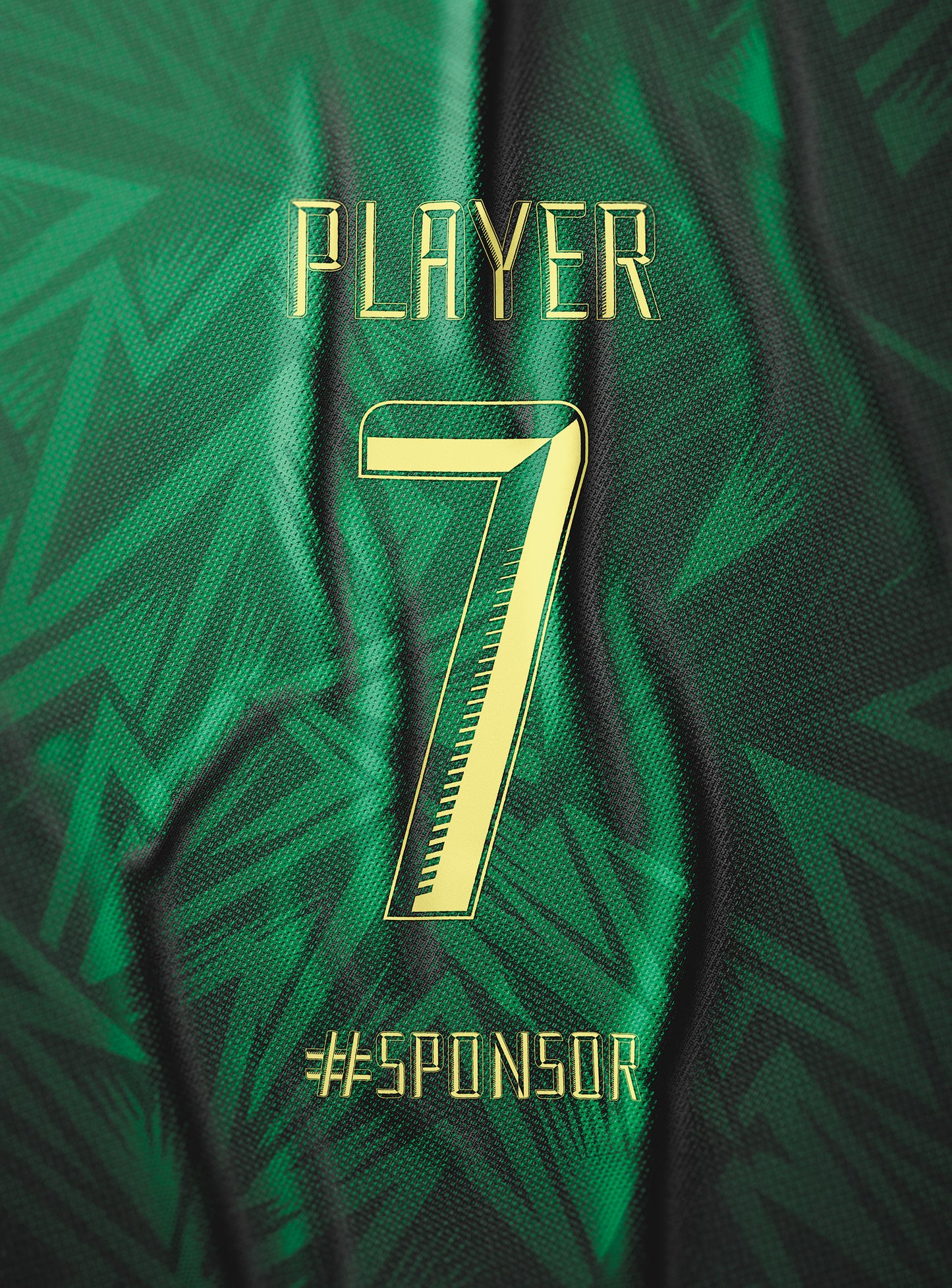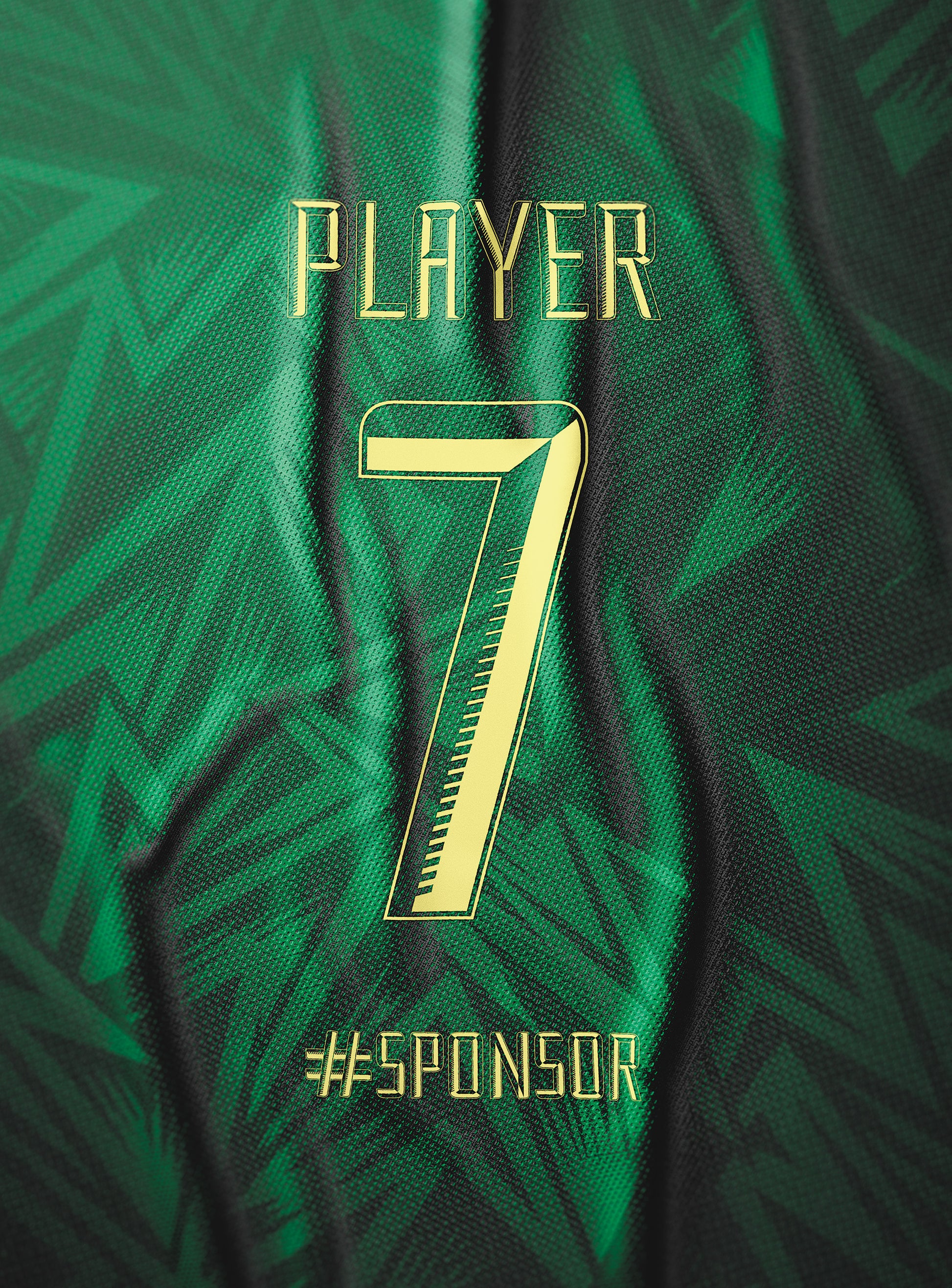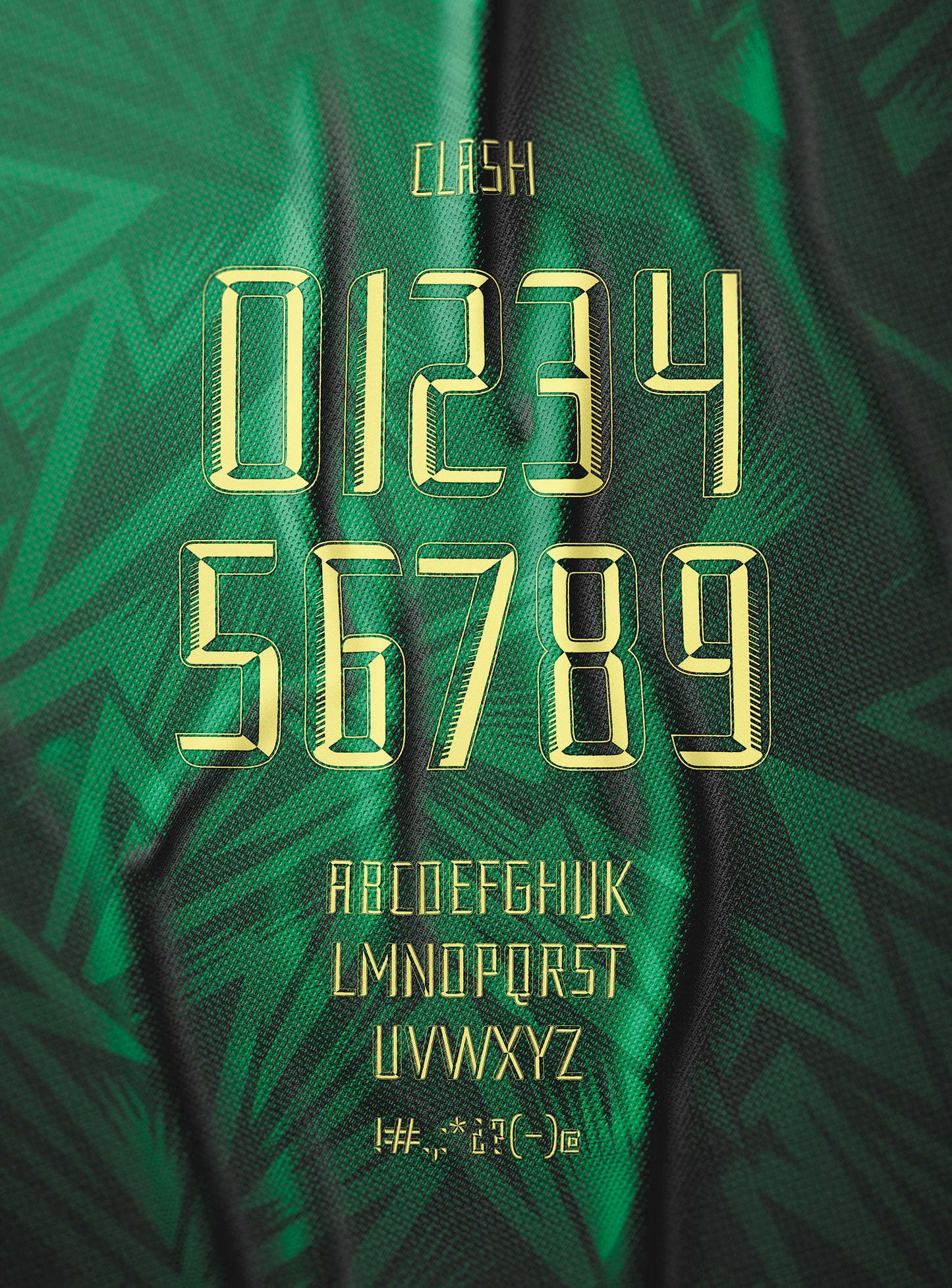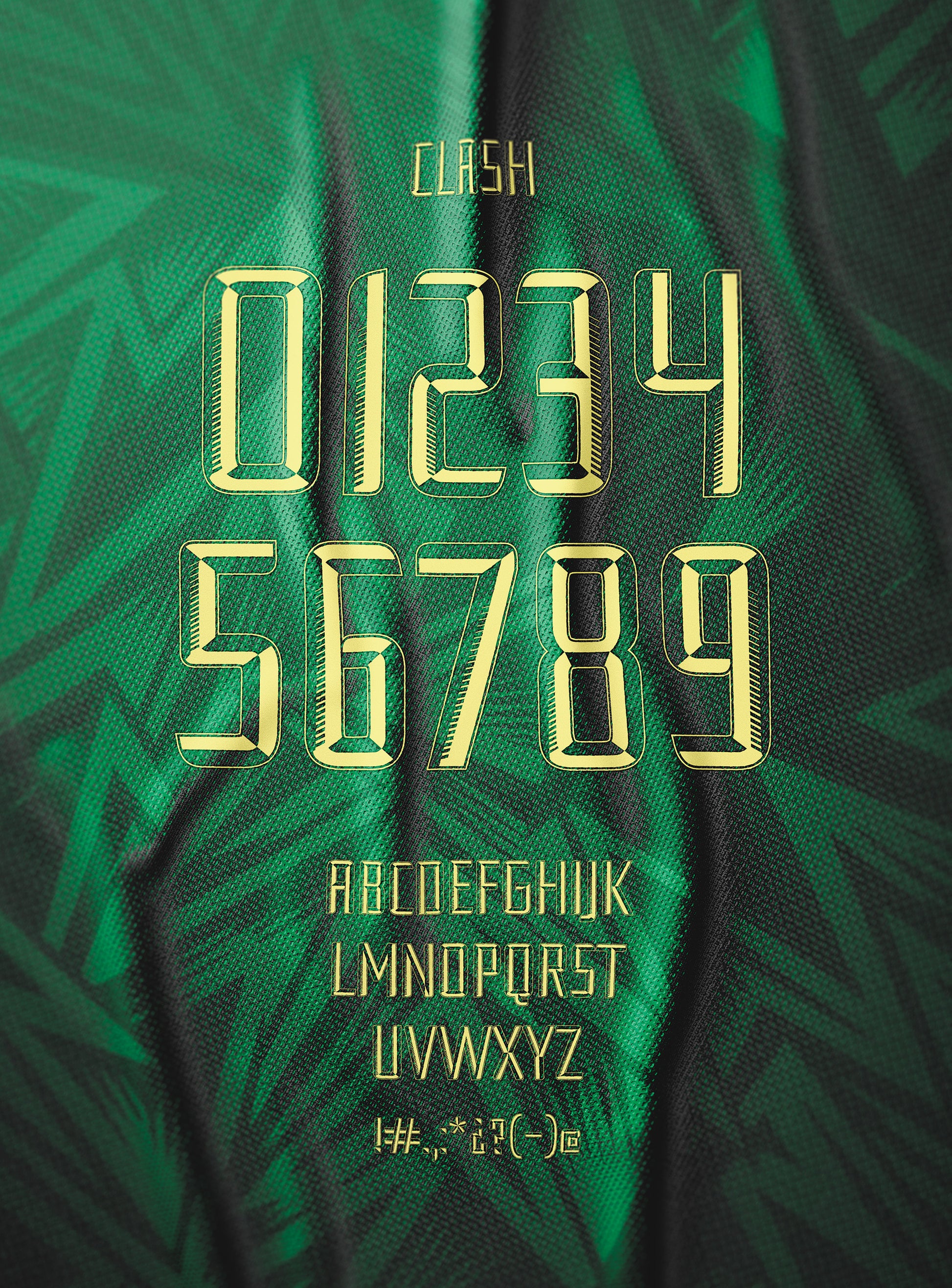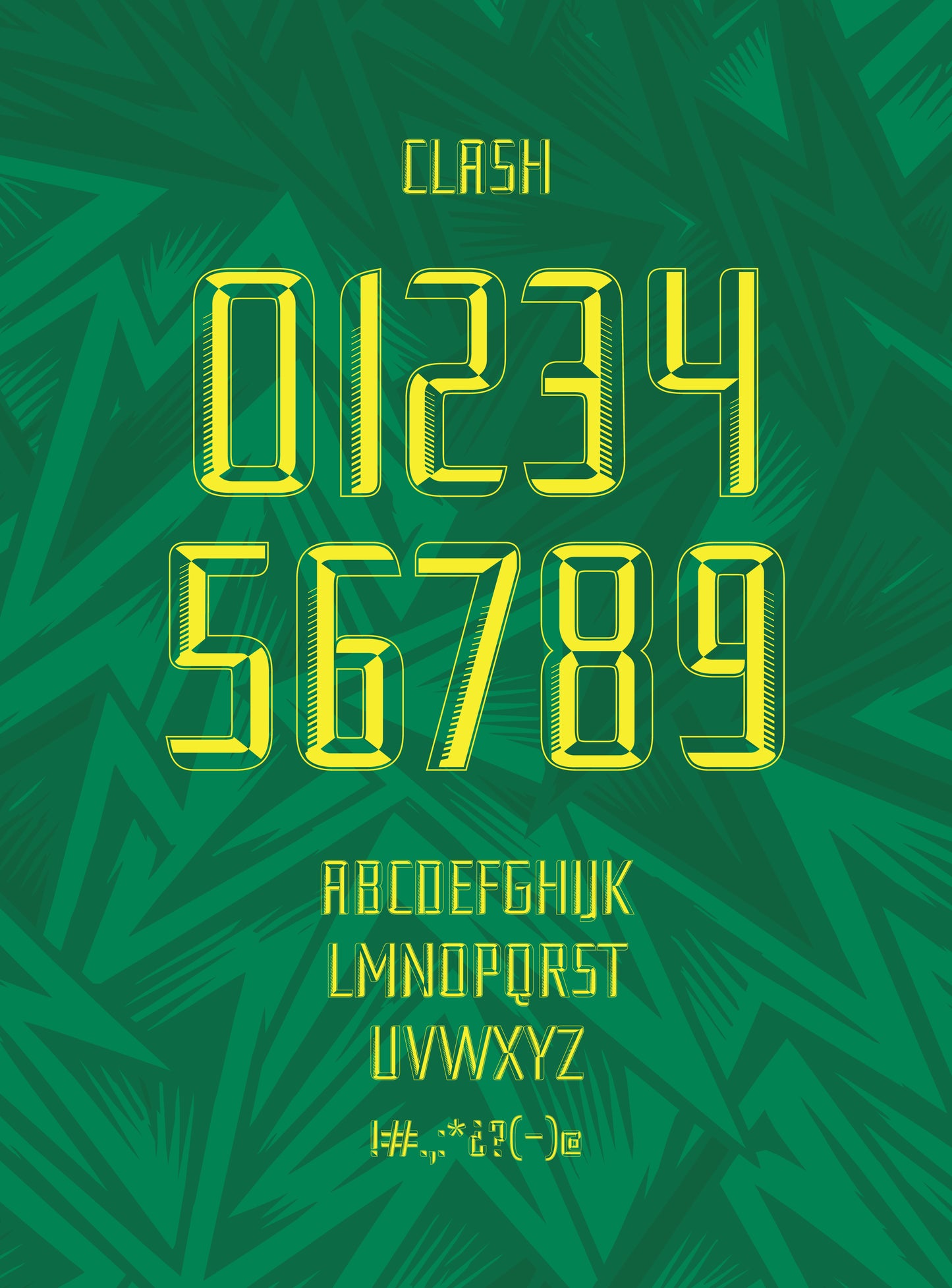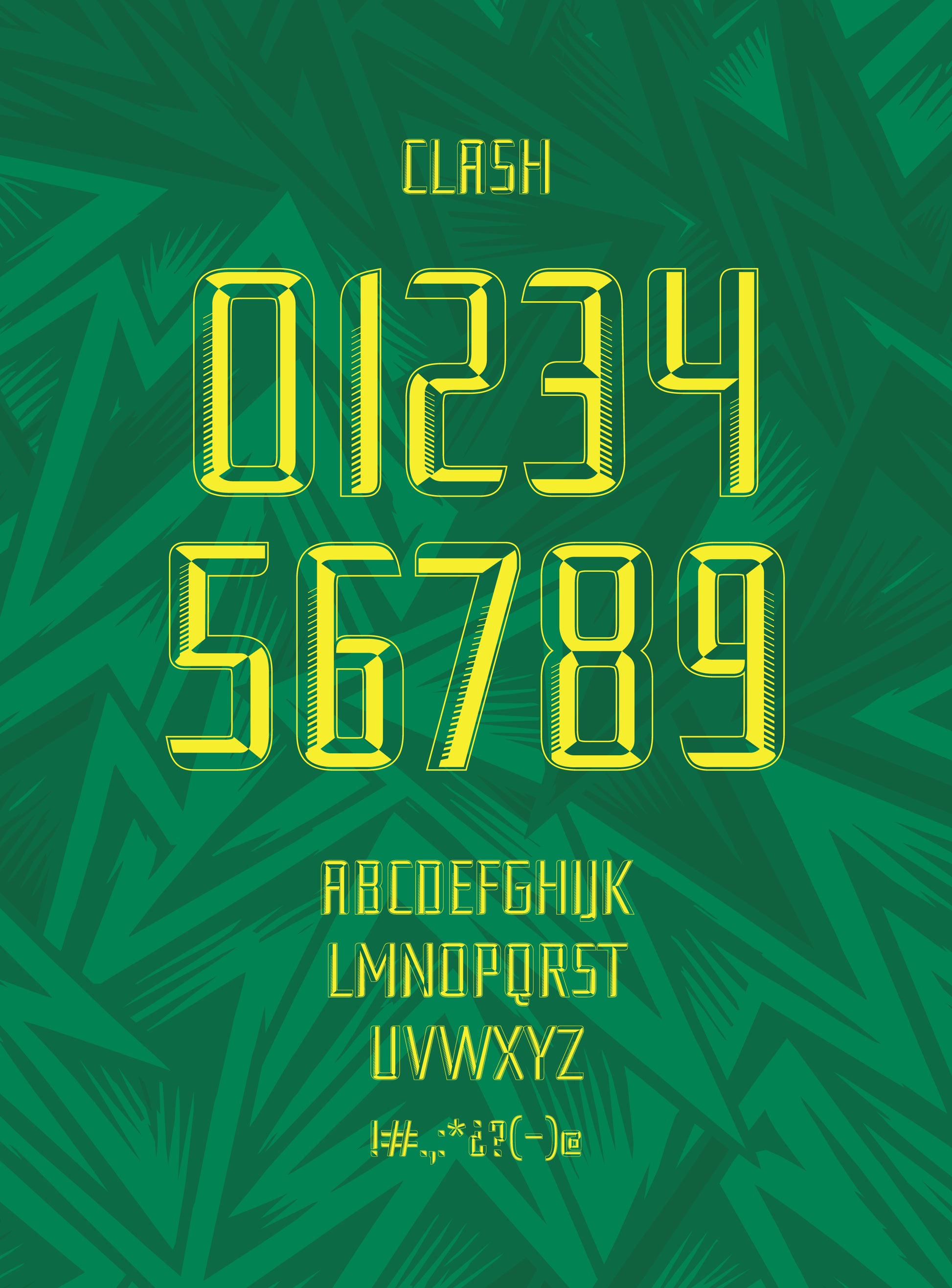
CLASH – Sports Uniform Font (Windows & macOS)
Give your sports uniforms a bold identity.
CLASH is a display font created specifically for sports uniforms, jerseys, player names, and numbers. Its strong geometric construction and angular details deliver a modern, competitive look with excellent visual impact.
Key Features
✔ Designed for sports uniforms, jerseys, names, and numbers
✔ Bold geometric construction with distinctive angular details
✔ Includes uppercase letters A–Z
✔ Includes numbers 0–9
✔ Includes selected punctuation marks and special characters
✔ Includes supported accented uppercase characters and Spanish characters
✔ Ideal for sublimation, sportswear, jersey customization, and uniform design